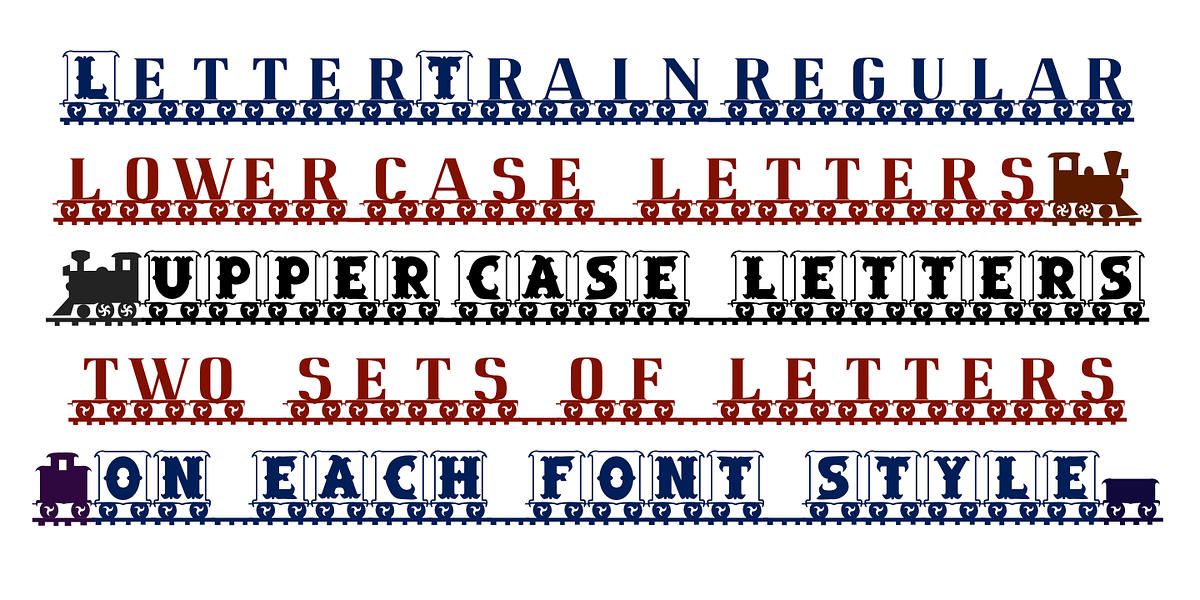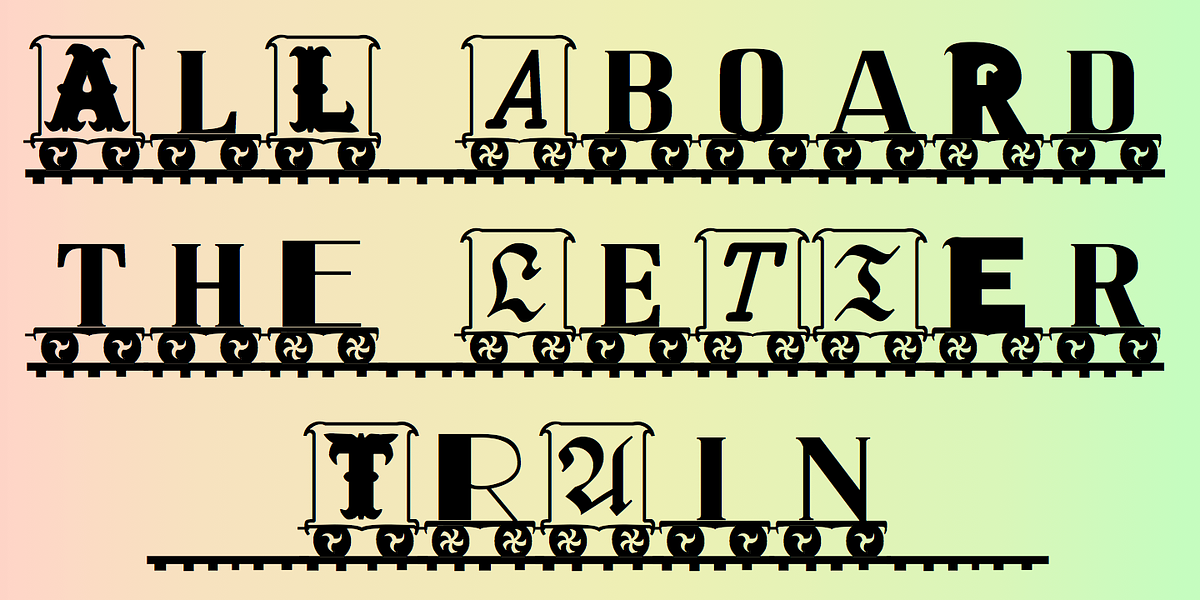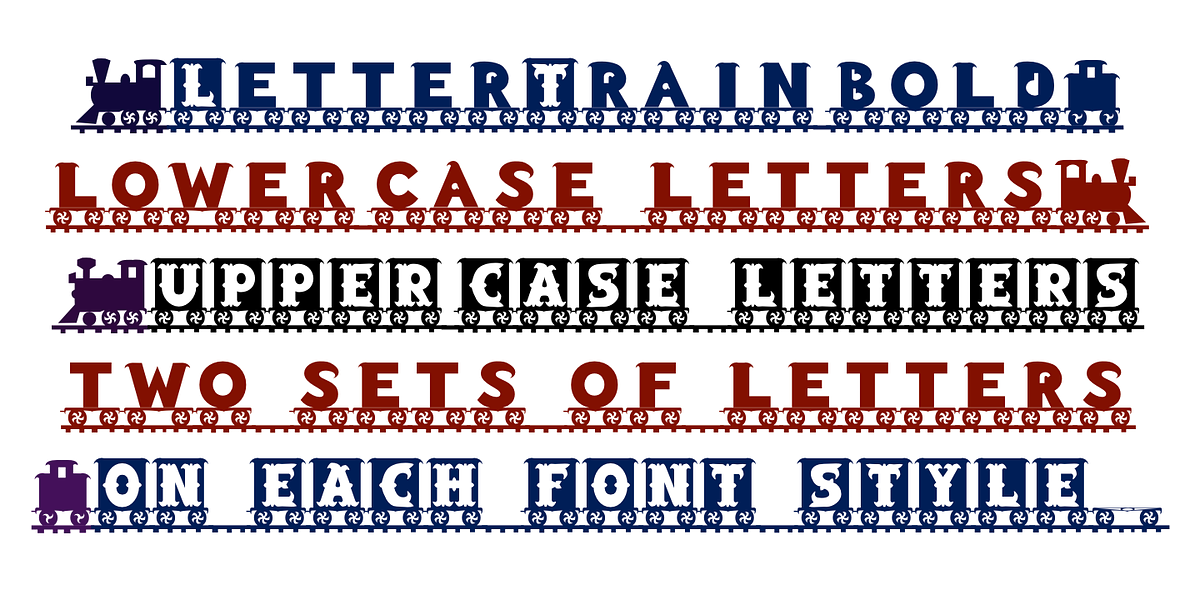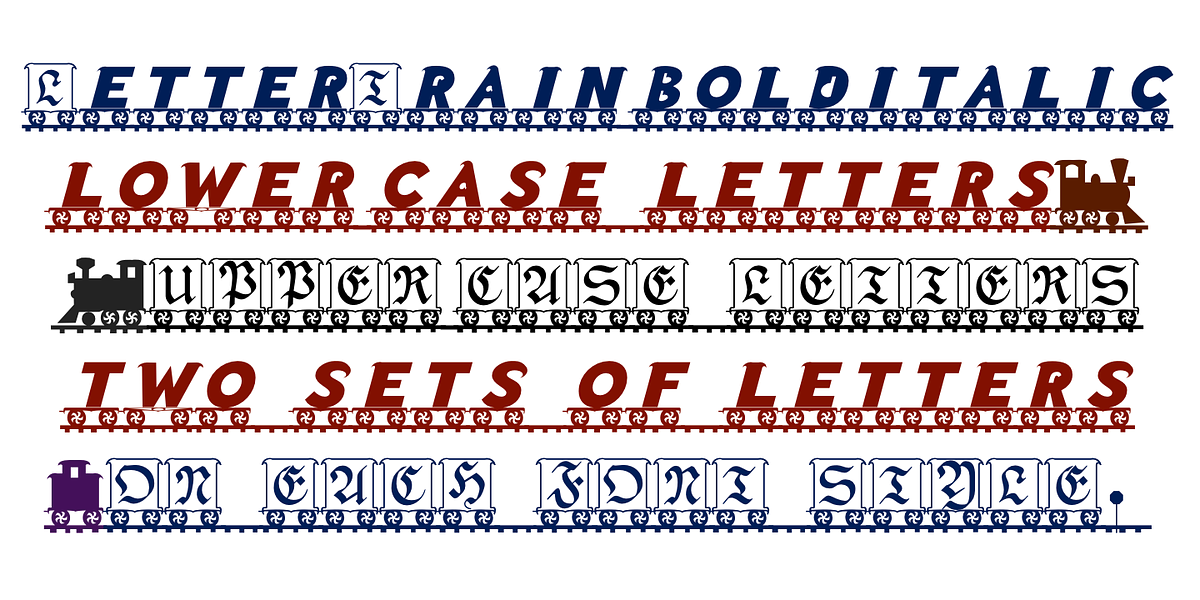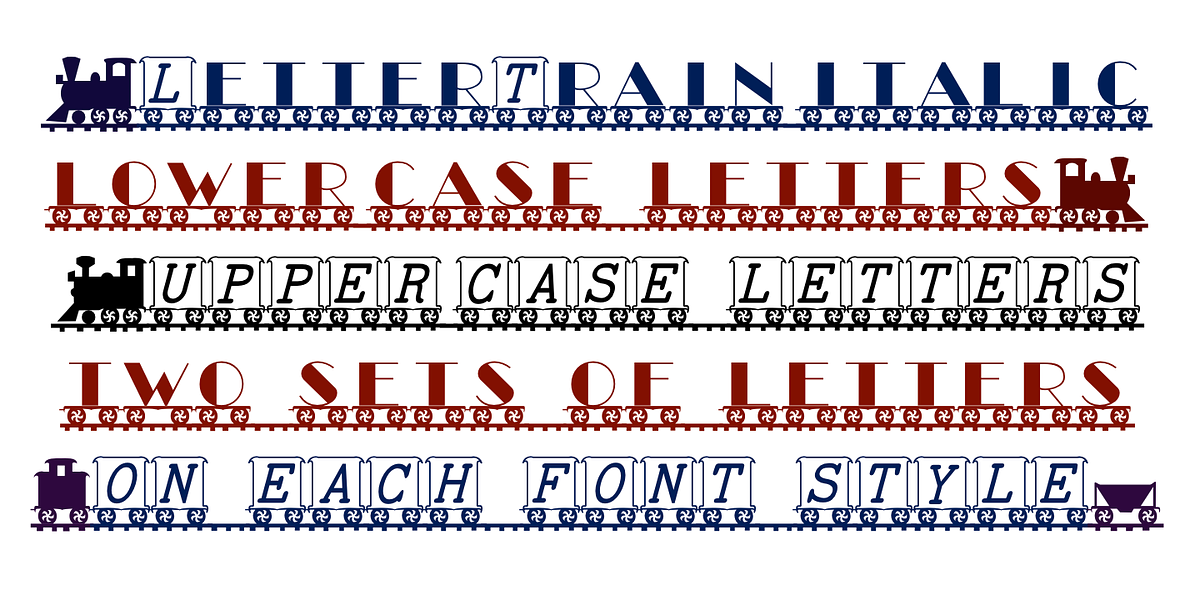
LetterTrain
This font family presents a unique and playful design by utilizing toy train cars as dingbats. Each car features a letter, with upper and lowercase letters having distinct typefaces. The variety extends to incorporating styles from other fonts like Salloon, TiredOfCourier, Glitzy, Qwatick, and PhederFrack. For additional visual interest, the XLaserTrain font offers cars without letters.